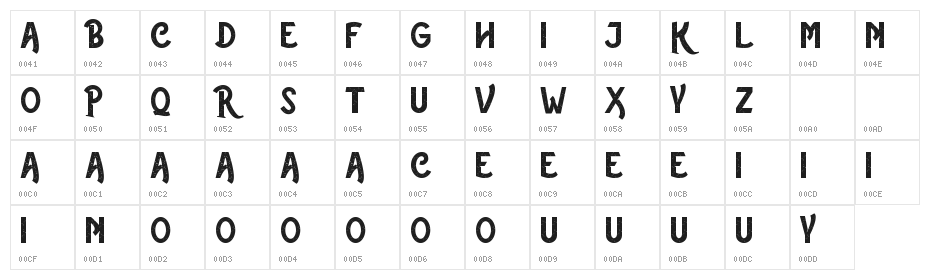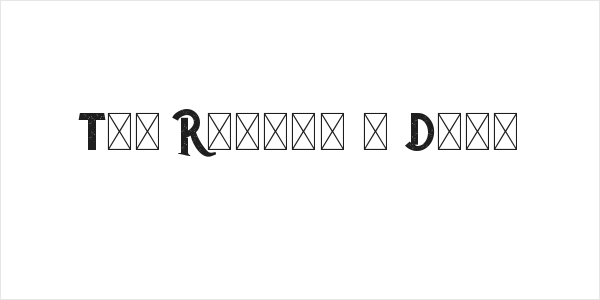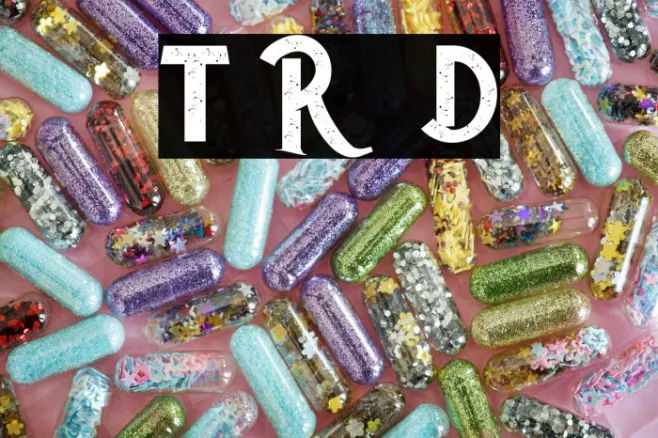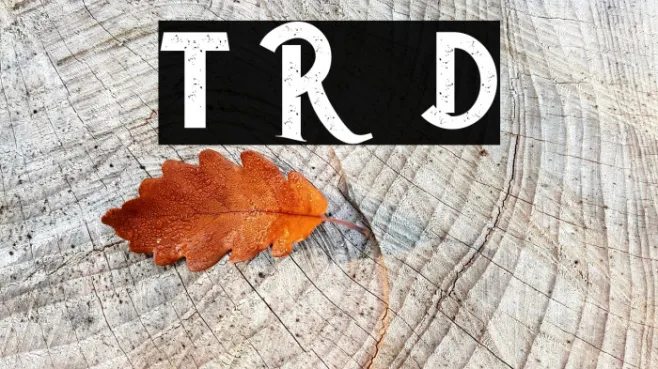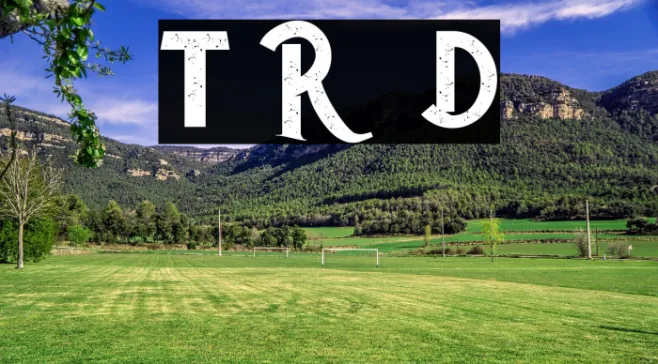
The Rustic - Demo Font
The Rustic - Demo Description
This font features a bold and decorative style with a rustic, textured appearance. The characters are designed with a playful and artistic flair, incorporating unique curves and angles that give it a handcrafted feel. The texture resembles a weathered or distressed look, adding to its charm and vintage appeal. Each letter is distinct, with some incorporating swashes and flourishes that enhance its decorative nature. The font maintains a consistent weight throughout, ensuring readability while still offering a visually engaging experience. Its boldness makes it suitable for attention-grabbing designs, while the textured detail adds depth and character.
| Proposed Projects | Ideal for branding projects, logo design, posters, and any creative work that requires a vintage or rustic touch. |